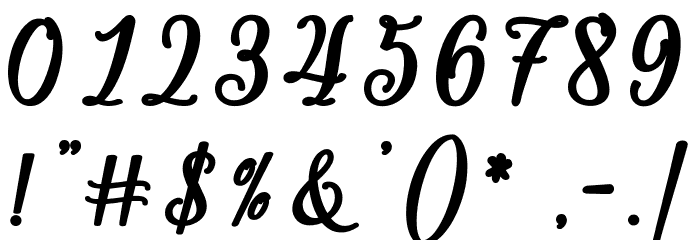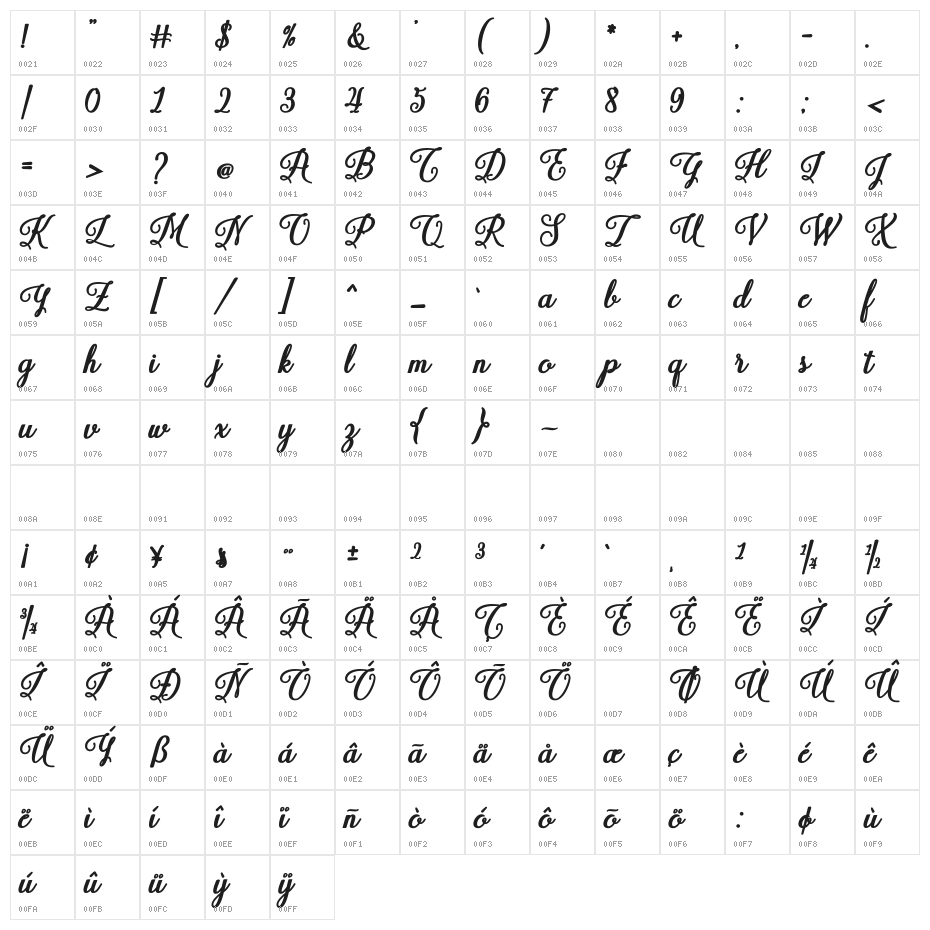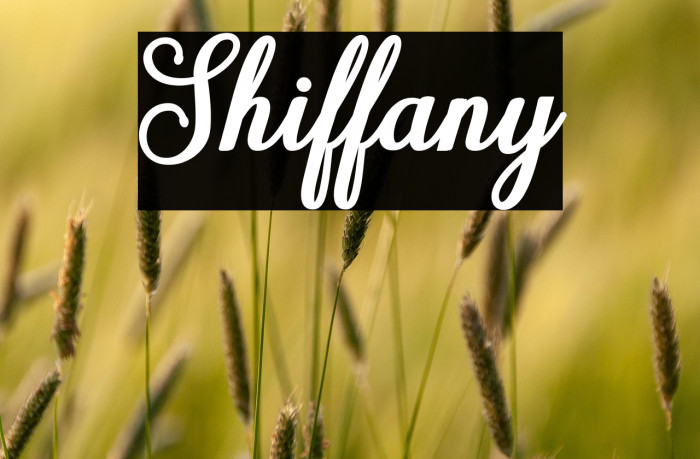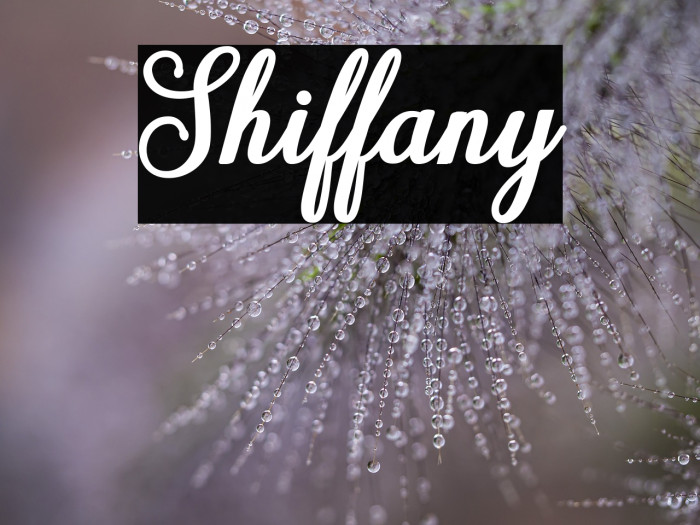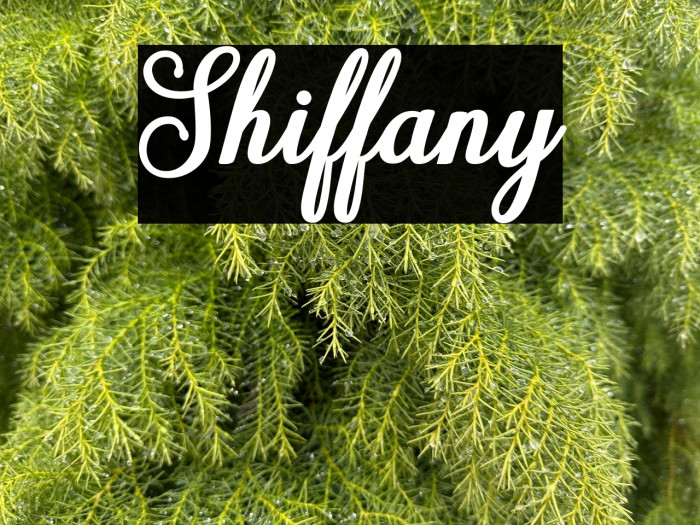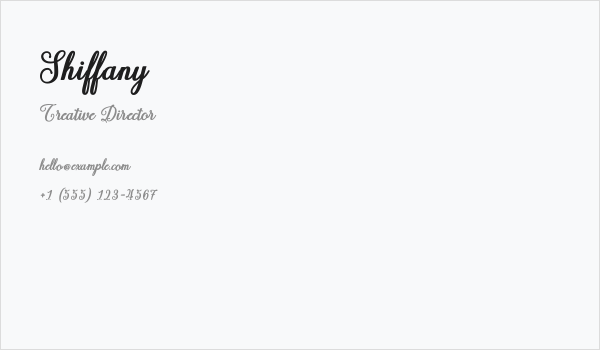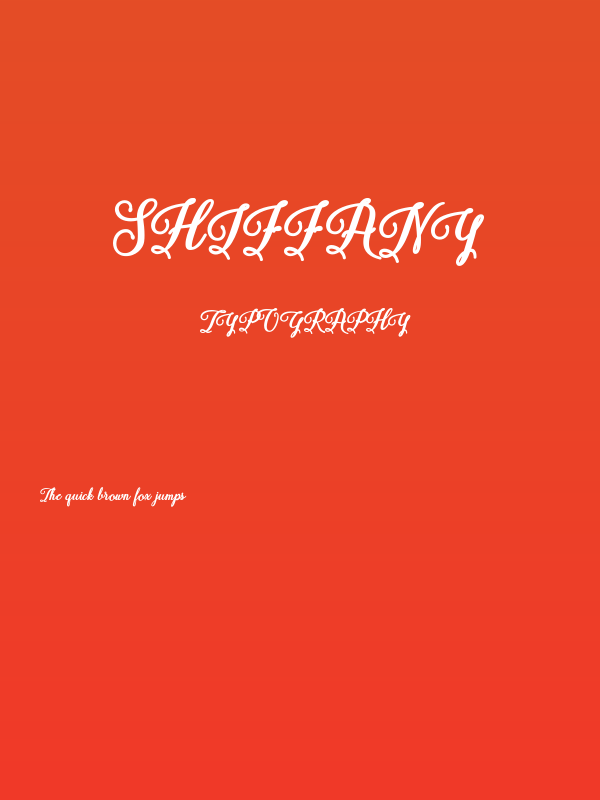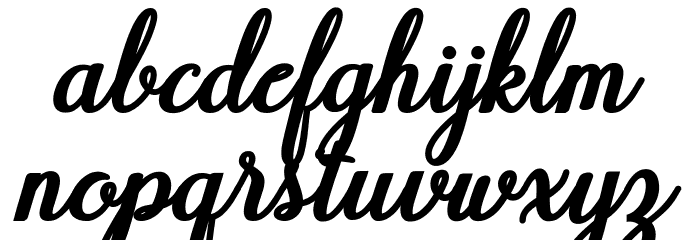
Shiffany Font
Shiffany Description
This font features an elegant and flowing script style, characterized by its smooth, cursive letterforms that convey a sense of sophistication and grace. The uppercase letters are ornate and slightly larger, with intricate loops and swashes that add a decorative touch. The lowercase letters maintain a consistent flow, with rounded edges and a slight slant that enhances readability. Numbers and special characters are designed to match the overall aesthetic, ensuring a cohesive look across all text. This font is ideal for projects that require a touch of elegance and formality.